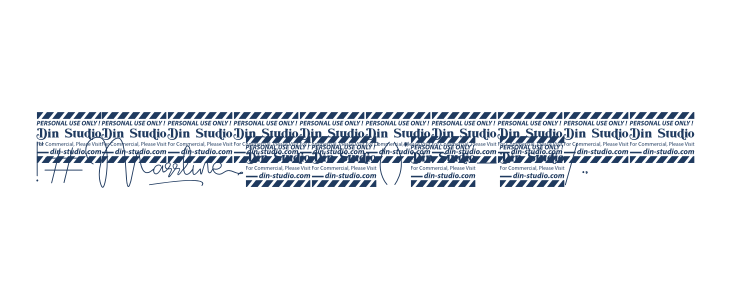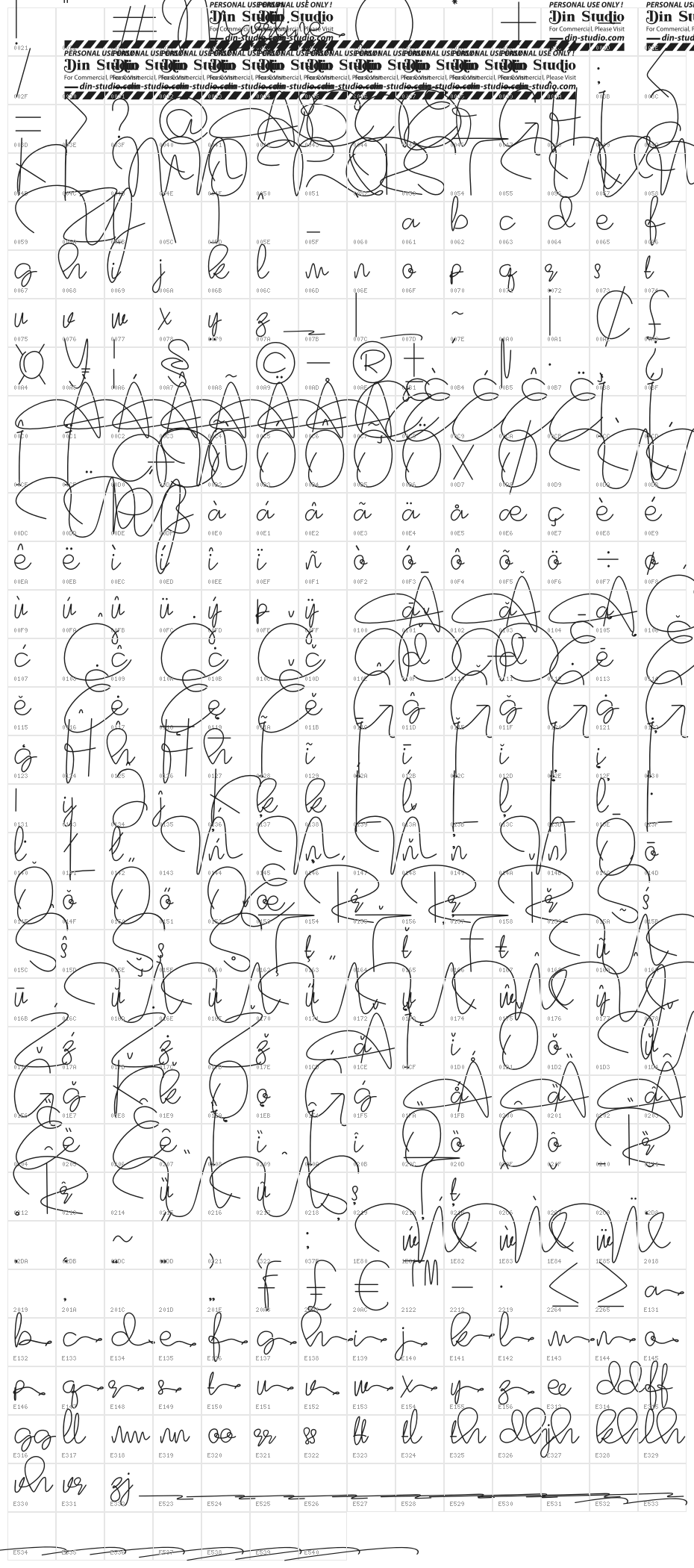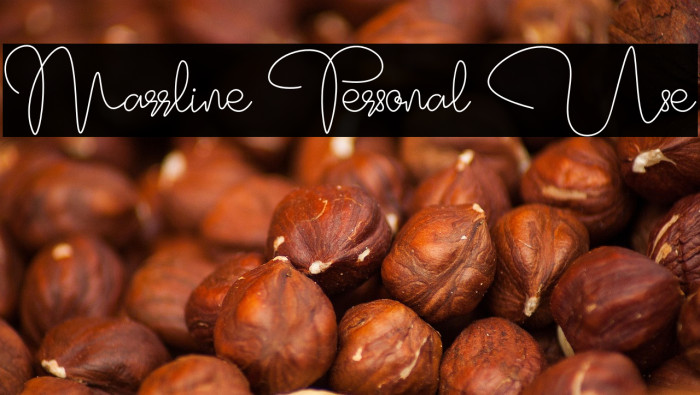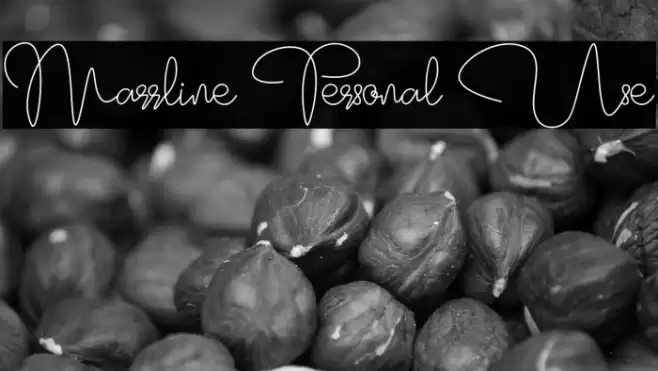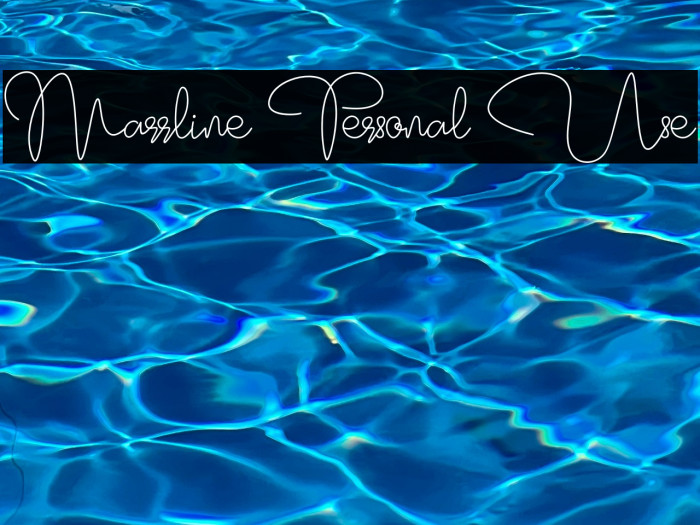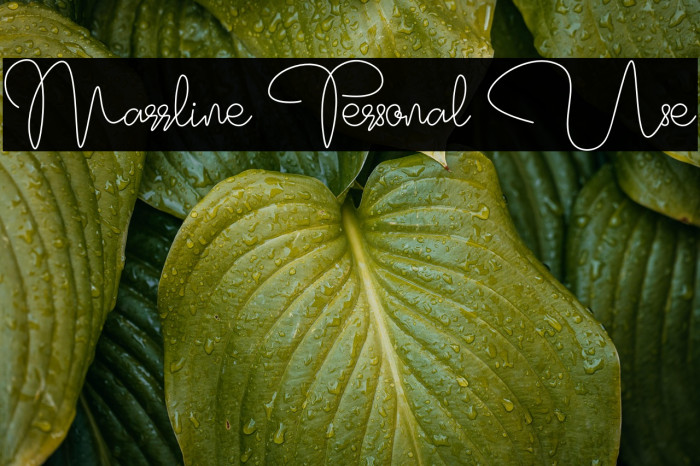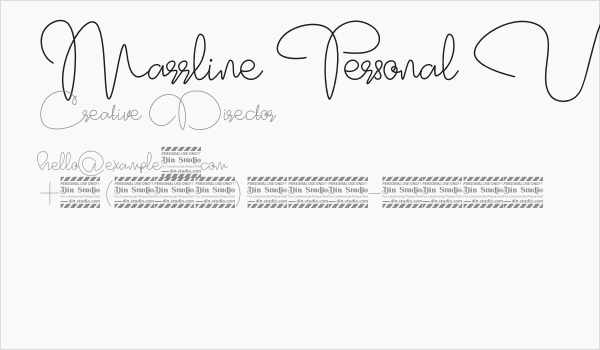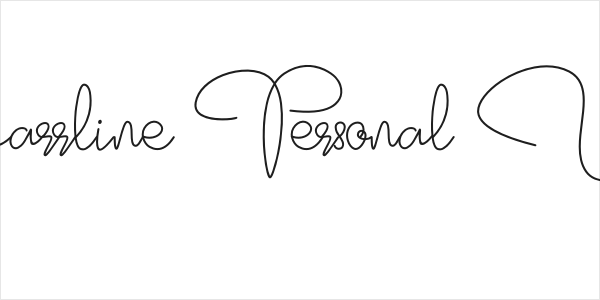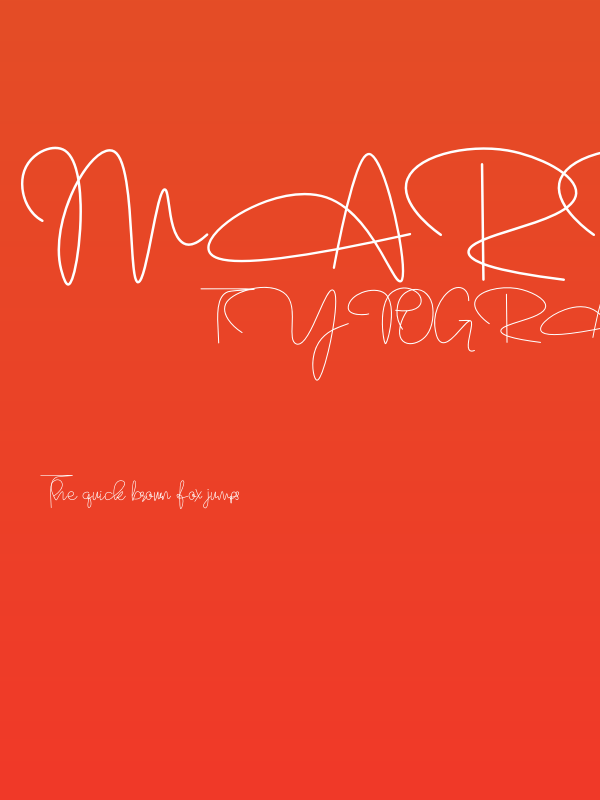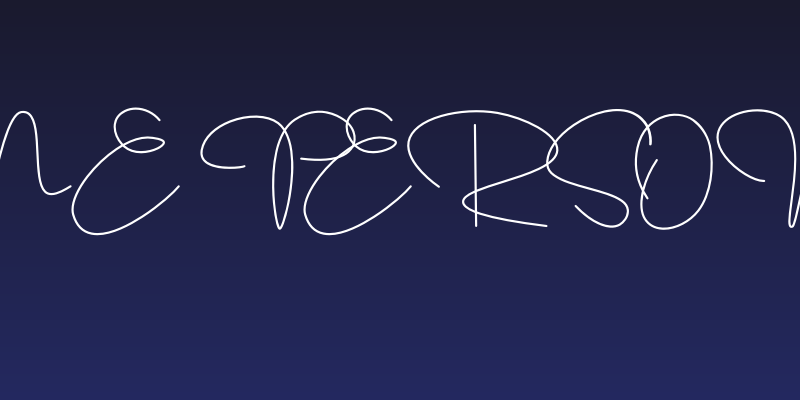
Marrline Personal Use Font
Marrline Personal Use Description
This font features an elegant and flowing script style, characterized by its intricate loops and swirls. The uppercase letters are distinct with their elaborate curves, while the lowercase letters maintain a cohesive and fluid appearance. The font exudes a sense of sophistication and artistry, making it ideal for creative and decorative applications. The characters are well-spaced, allowing for readability despite the ornate design. The font includes a full set of uppercase and lowercase letters, numerals, and a selection of special characters, providing versatility for various design needs.
| Use Case | Logos, Invitations, Artistic designs |
| Proposed Projects | Ideal for wedding invitations, branding, greeting cards, and artistic projects. |